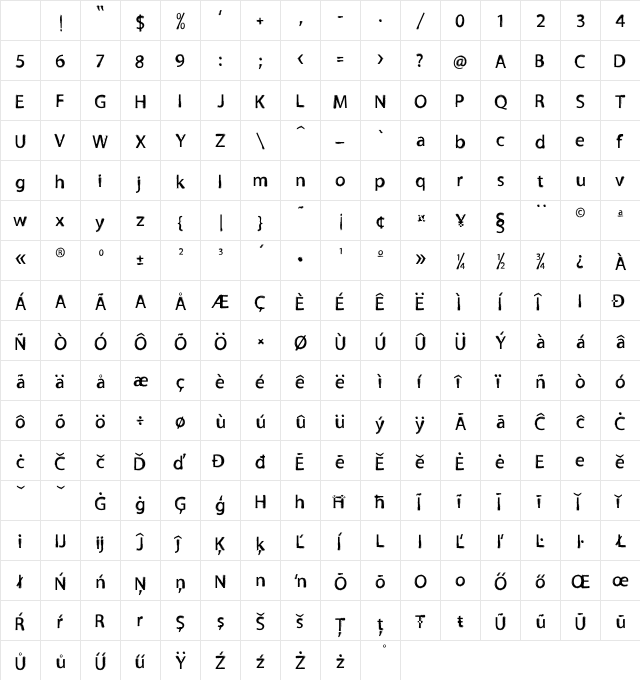
Complete TNEWPRO Normal glyph index. Displaying only characters natively supported by TNEWPRO Normal font.
TNEWPRO is a composed and adaptable typeface that performs quietly and consistently across a wide range of design contexts.